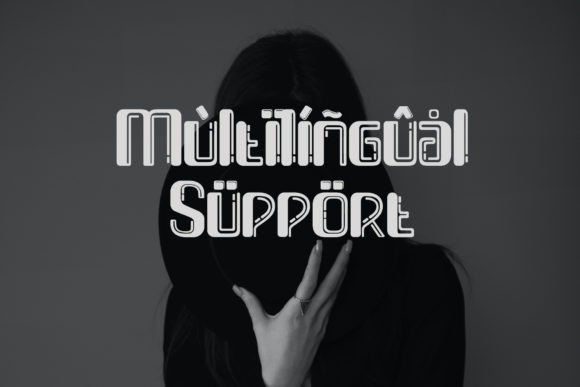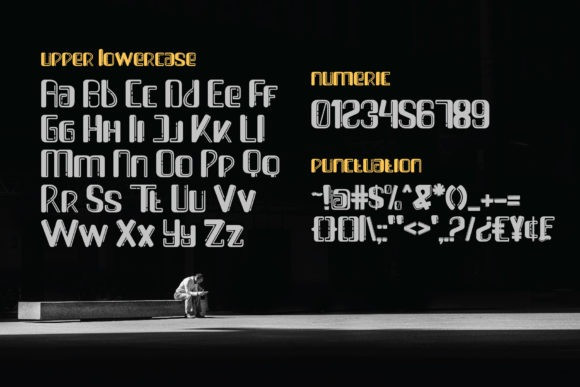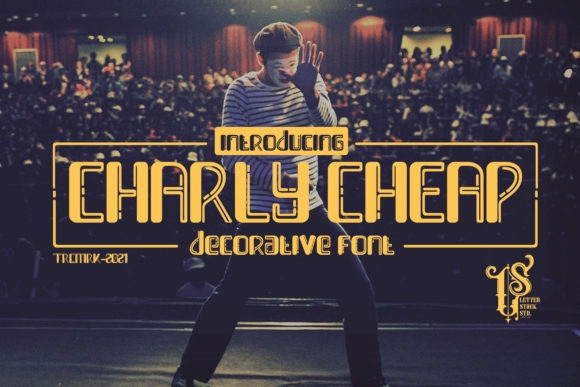
Charly Cheap Display Font
Charly Cheap is a cool and uniquely designed display font. It has a retro vibe and it will look great on a variety of designs. The only limit is your imagination.